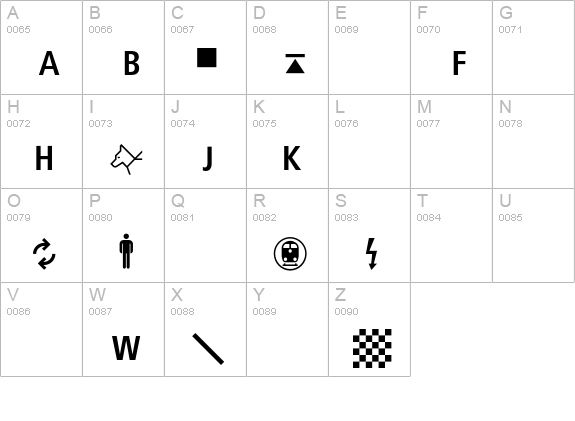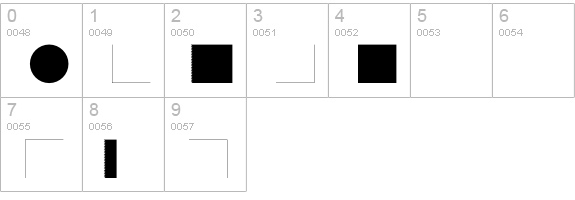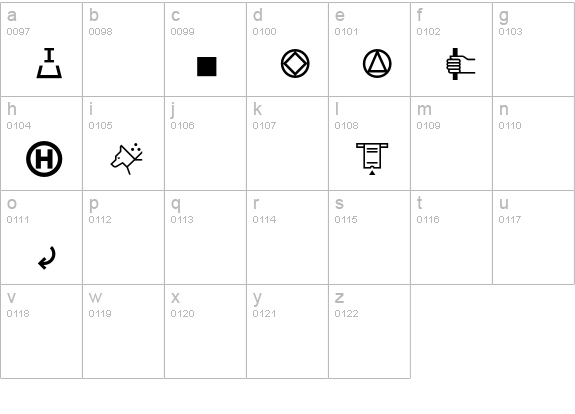
BVGPictZwo Font Details
The BVGPictZwo font is a creative and artistic typeface that brings a playful and whimsical touch to any design project. With its unique style and charming characters, this font is perfect for adding a touch of fun and personality to your creations. Whether you're designing a poster, a greeting card, or a logo, BVGPictZwo is sure to make your text stand out. Best of all, BVGPictZwo is available for free download at FontsMarket.com. This means that you can easily access and use this delightful font in your projects without any cost. Don't miss out on the opportunity to add a touch of creativity to your designs with the BVGPictZwo font – download it today and let your imagination run wild!